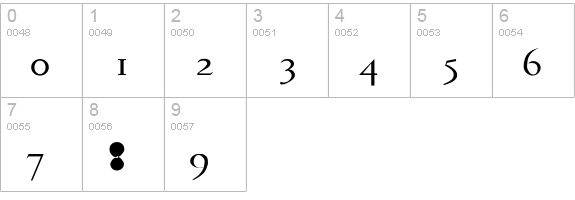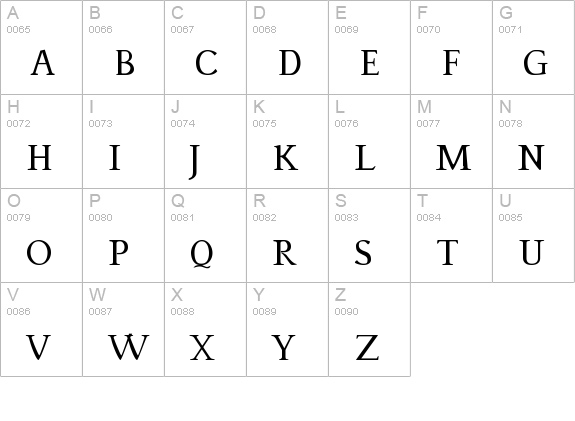
Phaedrus Font Details
Introducing Phaedrus, a captivating and versatile font that is sure to leave a lasting impression. With its elegant and sophisticated design, Phaedrus brings a touch of class to any project. This unique typeface seamlessly blends traditional elements with a modern twist, resulting in a timeless and visually striking font. Phaedrus is not only visually stunning, but it also offers a wide range of weights and styles, making it perfect for various design applications. Whether you're creating a logo, branding materials, or a stunning poster, Phaedrus offers the flexibility to bring your creative vision to life. What sets Phaedrus apart is not only its exceptional design, but also the fact that it is absolutely free. That's right, you can download this remarkable font at no cost from FontsMarket.com. This makes it accessible to designers, artists, and creatives of all backgrounds, ensuring that stunning typography is within reach for everyone. With its clean lines, impeccable spacing, and attention to detail, Phaedrus is a true testament to the art of typography. Its timeless elegance and versatility make it a must-have font for any designer's toolkit. So don't miss out on this exceptional opportunity to enhance your projects with Phaedrus - the free font that is freely available to download at FontsMarket.com.